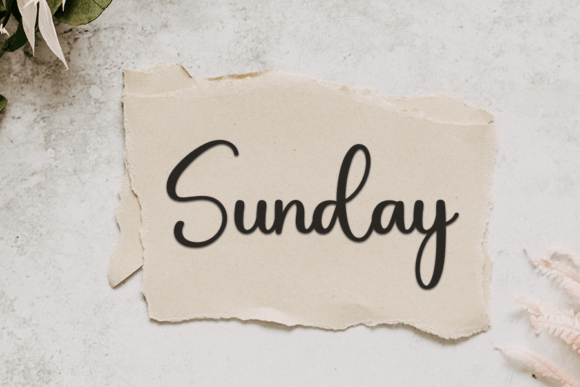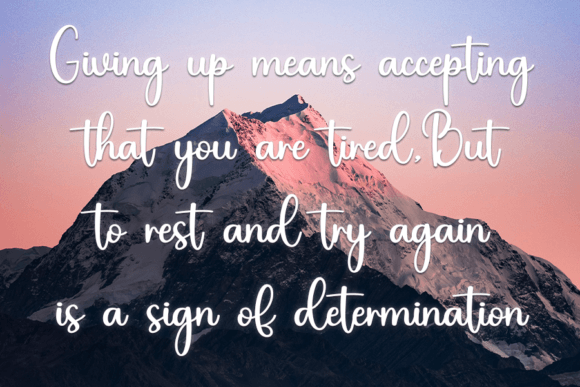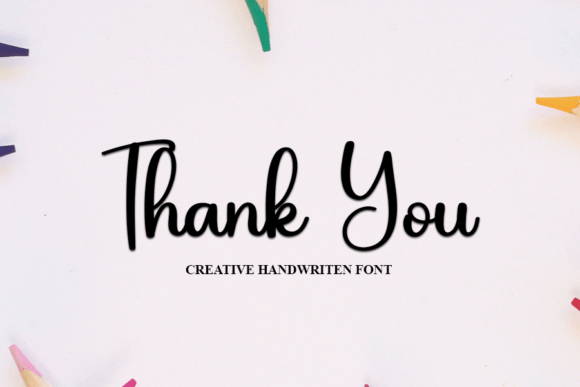
The Quest for the Perfect Font: Discovering Bestie
I’ll never forget the time I was working on a project for a client who wanted a custom invitation for their wedding. I had spent hours brainstorming ideas, sketching out designs, and experimenting with different layouts. But as I sat in front of my computer, staring at the blank canvas, I realized I was stuck. The font I was using just wasn’t cutting it – it was too bland, too generic, and completely lacking in personality. That’s when I knew I had to search for something new, something special. And that’s how I discovered Bestie, a delicate handwritten font that would change the game for me and my design projects.
A First Impression: What I Love About Bestie
Bestie is a beautiful, carefully crafted font that exudes a cool and unique vibe. Here are just a few things I love about it:
• ✨ Delicate and elegant: Bestie’s handwritten style is perfect for creating sophisticated designs that still feel approachable and friendly.
• ✅ Highly versatile: Whether you’re designing invitations, titles, or food product labels, Bestie adapts seamlessly to different contexts.
• 💫 OpenType features: Bestie comes with a range of OpenType features, including stylistic alternates and glyphs, which allow you to customize your text and add an extra layer of personality to your designs.
A Few Quirks to Keep in Mind
While Bestie is an amazing font, it’s not without its quirks. Here are a few things to keep in mind:
• ⚠️ Limited kerning: As with any handwritten font, kerning can be a bit tricky. Be sure to adjust the spacing between letters to get the best results.
• 🤔 Not ideal for body text: Bestie is best used for headlines, titles, and short paragraphs. For longer blocks of text, you may want to choose a more traditional font.
The Story Behind Bestie
Bestie was designed with one goal in mind: to create a beautiful, versatile font that would inspire creativity and bring a touch of elegance to any design. While I couldn’t find any information on the actual designer, it’s clear that they put a lot of love and care into crafting this stunning font.
Q: Is Bestie suitable for body text?
A: While Bestie is a beautiful font, it’s best used for headlines, titles, and short paragraphs. For longer blocks of text, you may want to choose a more traditional font.
Q: Does Bestie come with OpenType features?
A: Yes, Bestie comes with a range of OpenType features, including stylistic alternates and glyphs.